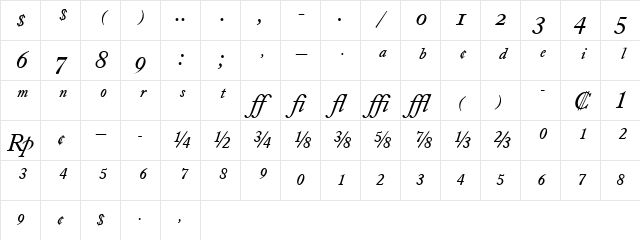
Complete CaslonBEExpert-Book BookItalic glyph index. Displaying only characters natively supported by CaslonBEExpert-Book BookItalic font.
CaslonBEExpert-Book is a composed and adaptable typeface that performs quietly and consistently across a wide range of design contexts. The slanted form adds forward momentum and visual energy.